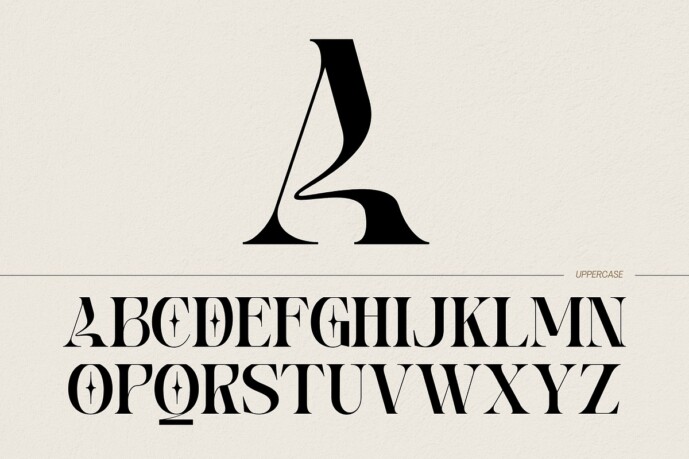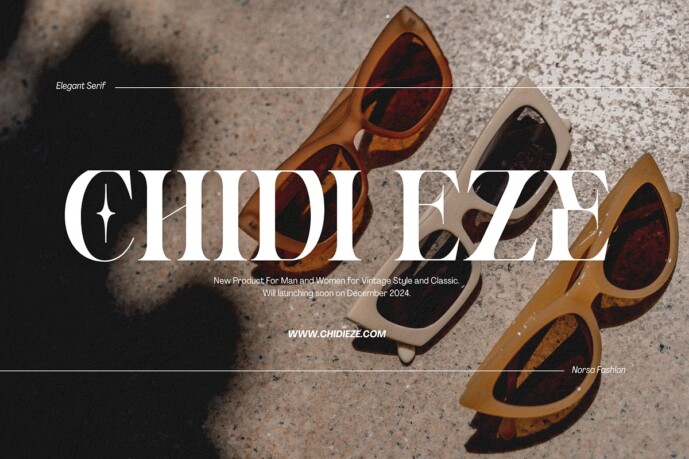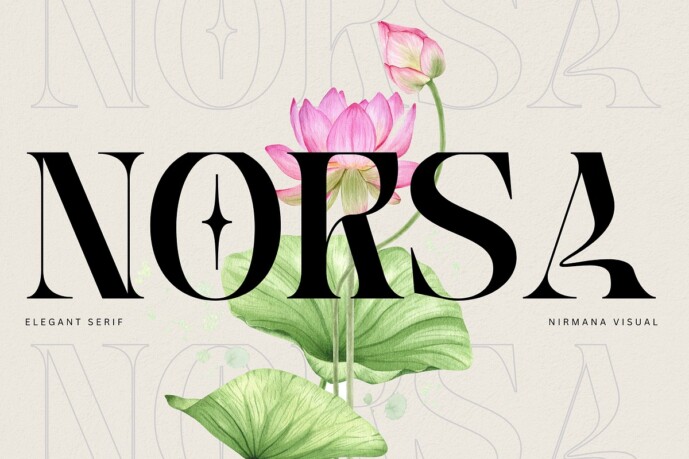
Fashion Norsa Font
Fashion Norsa Font offers beautiful typographic harmony for a diversity of design projects, including logos & branding, social media posts, advertisements & product designs.